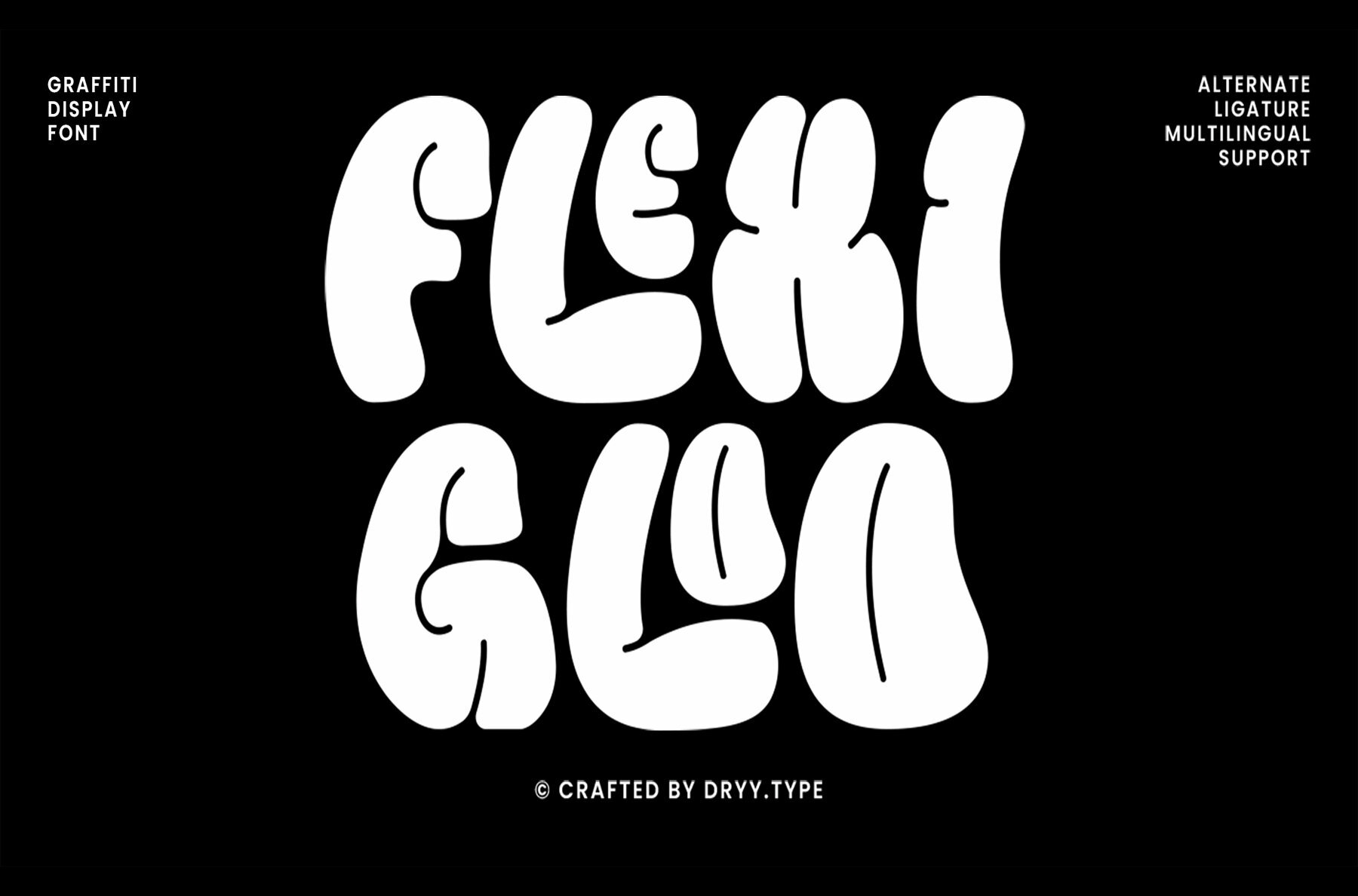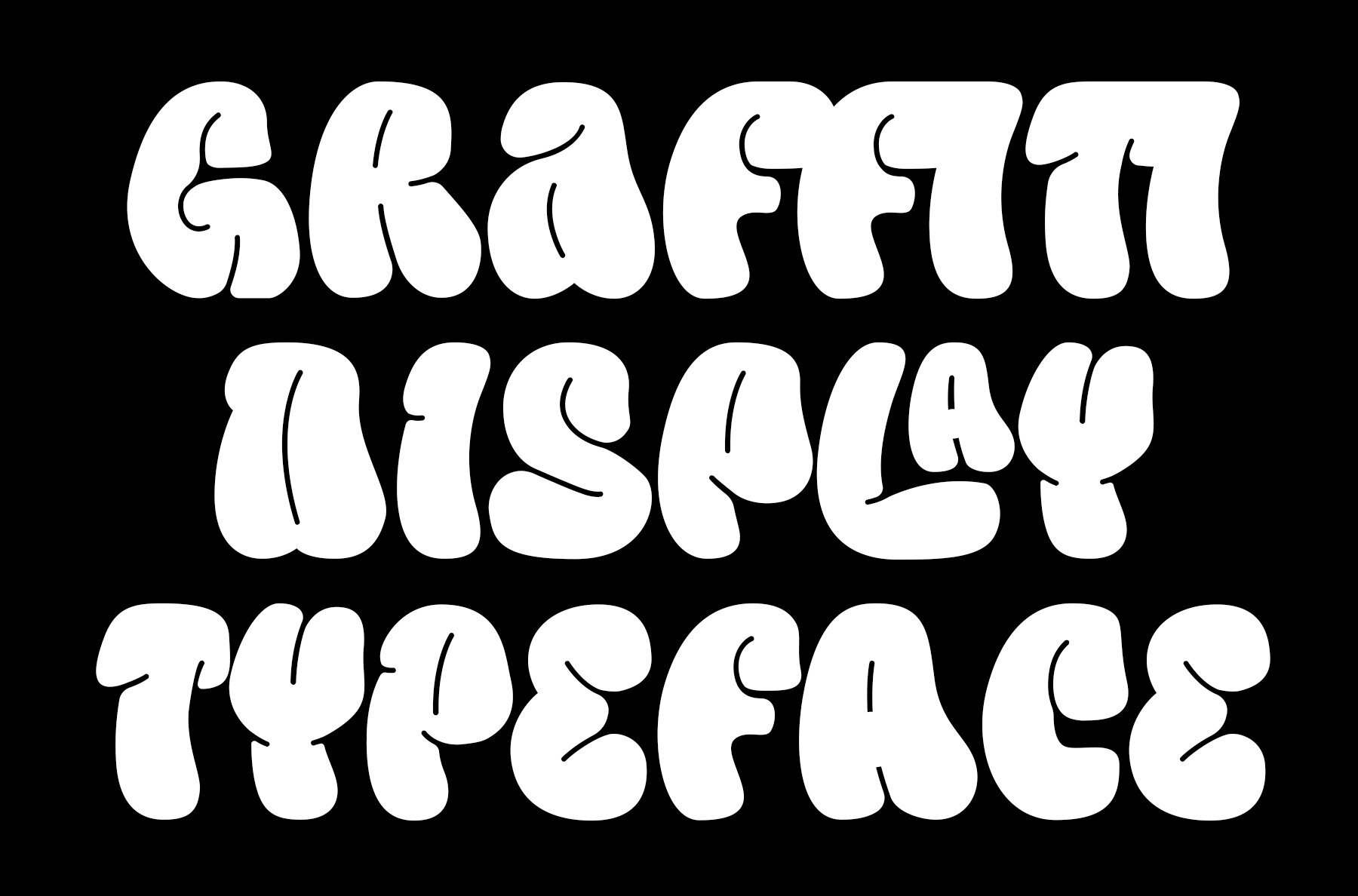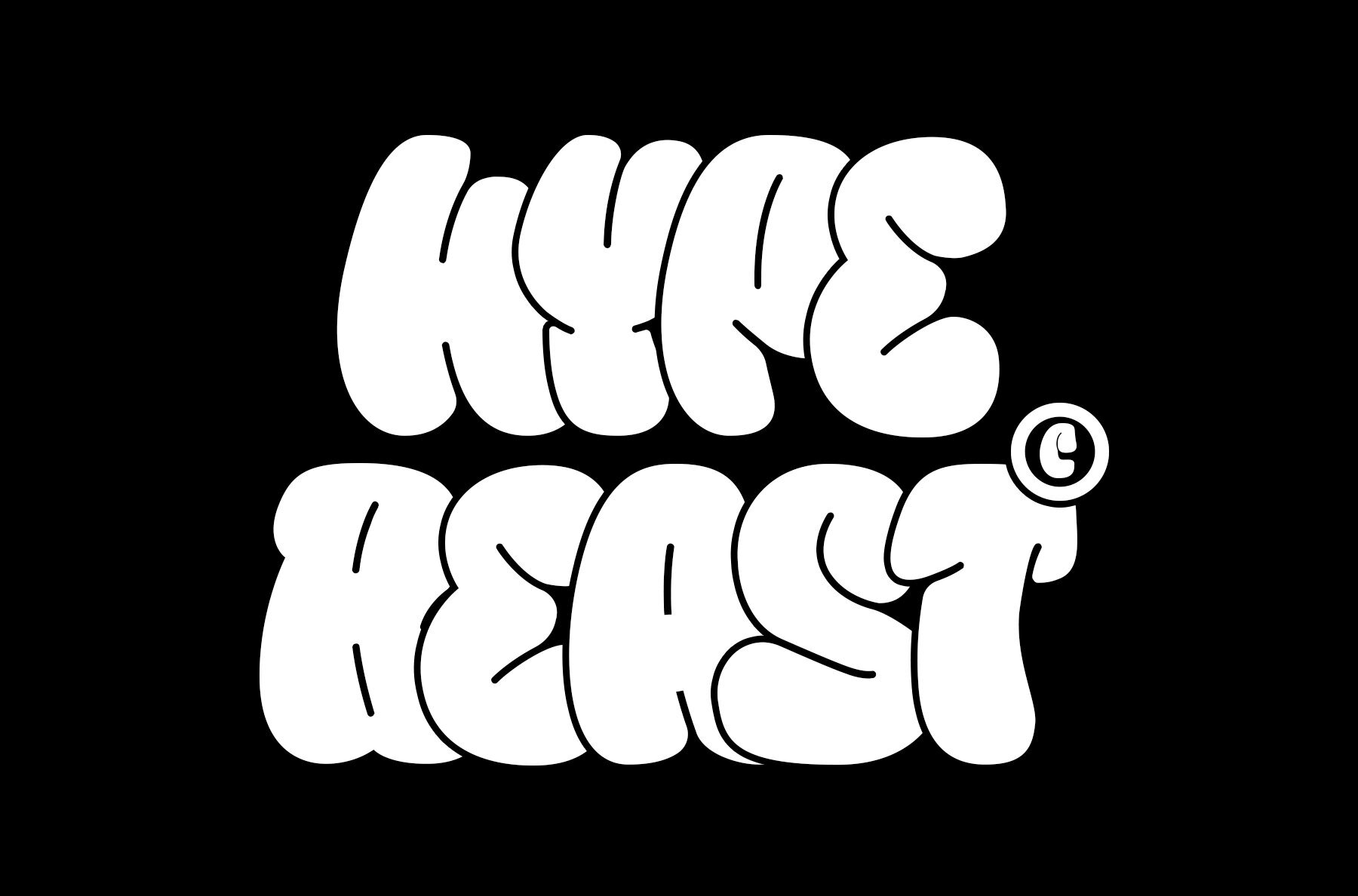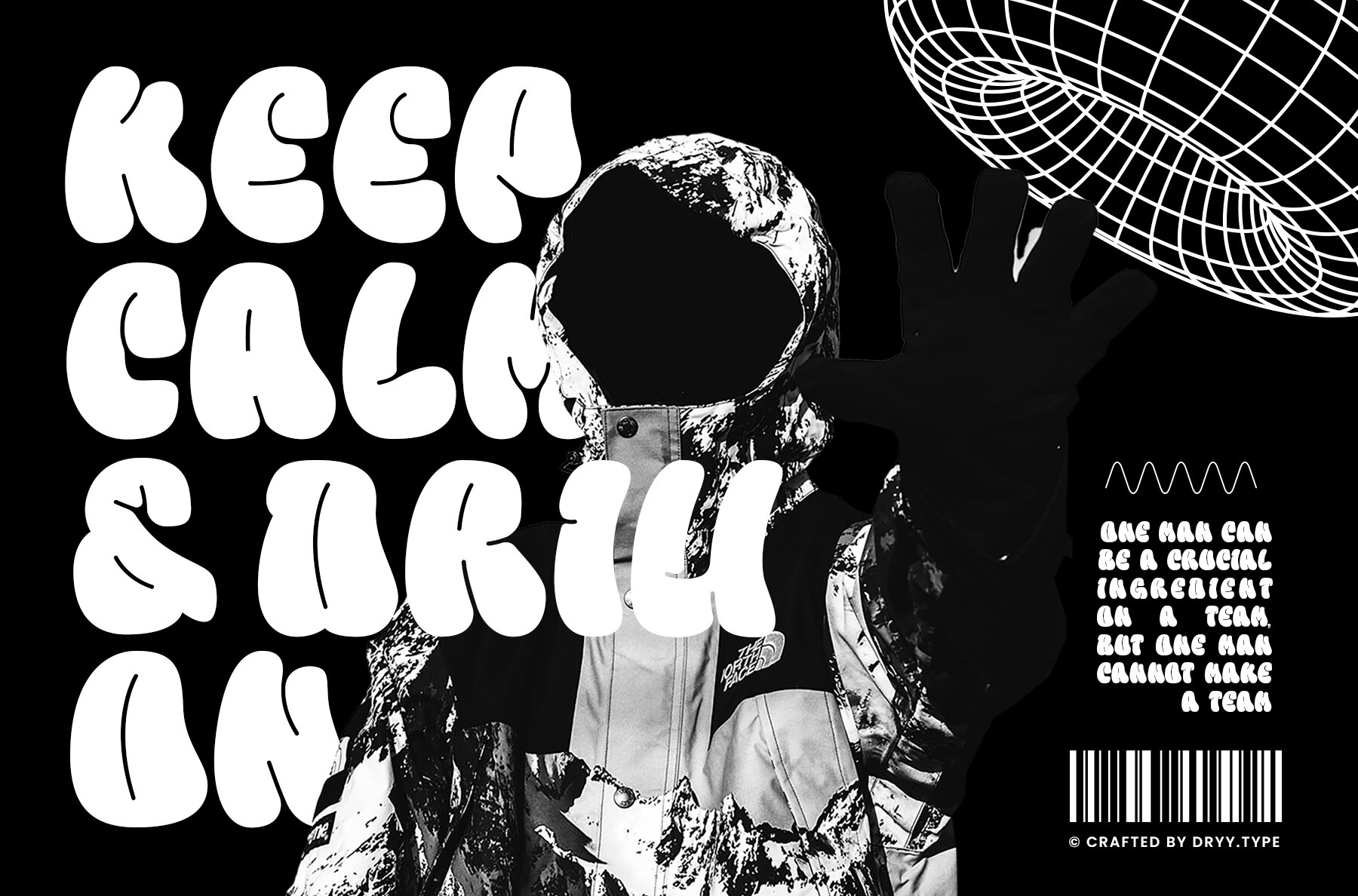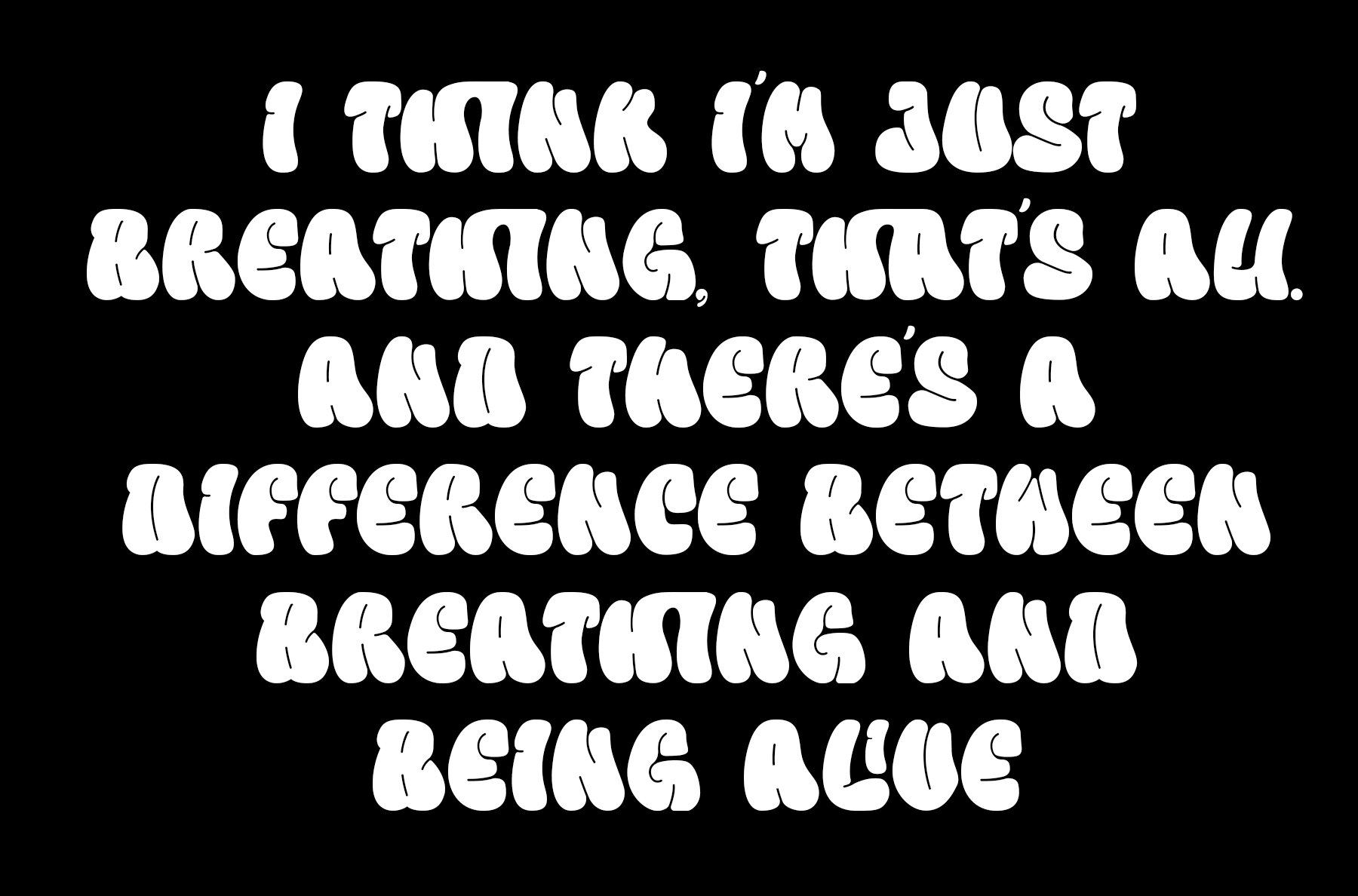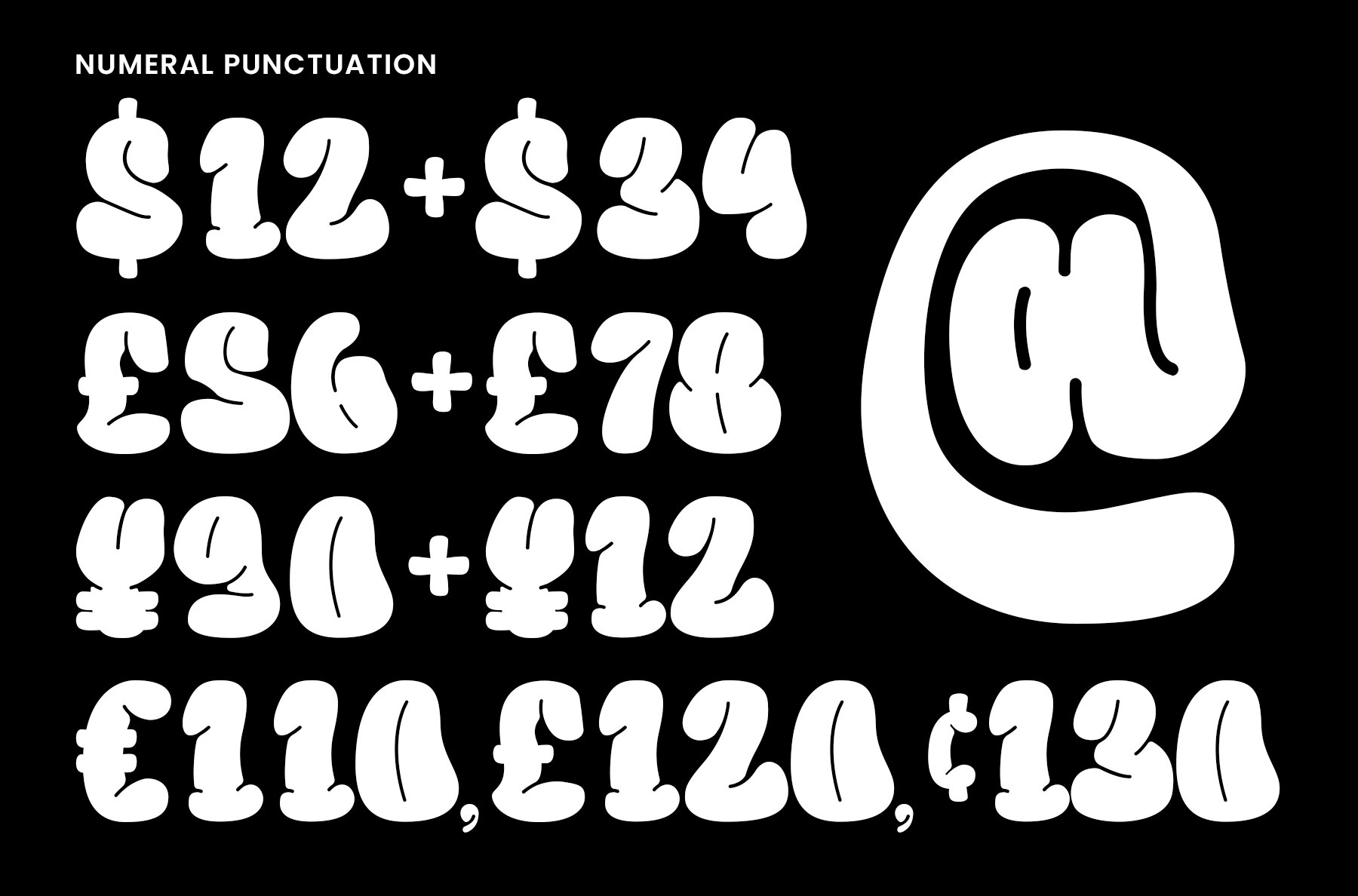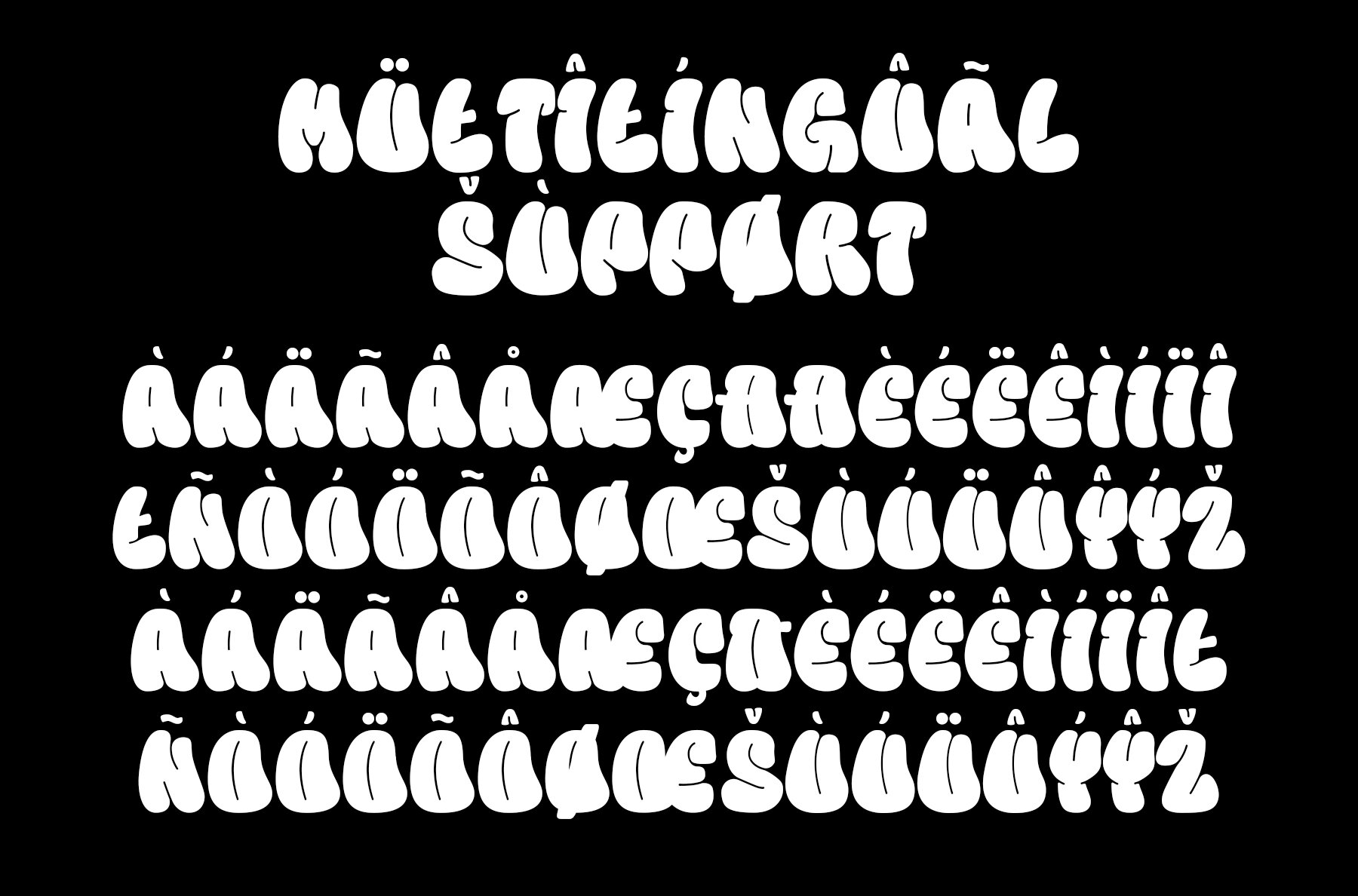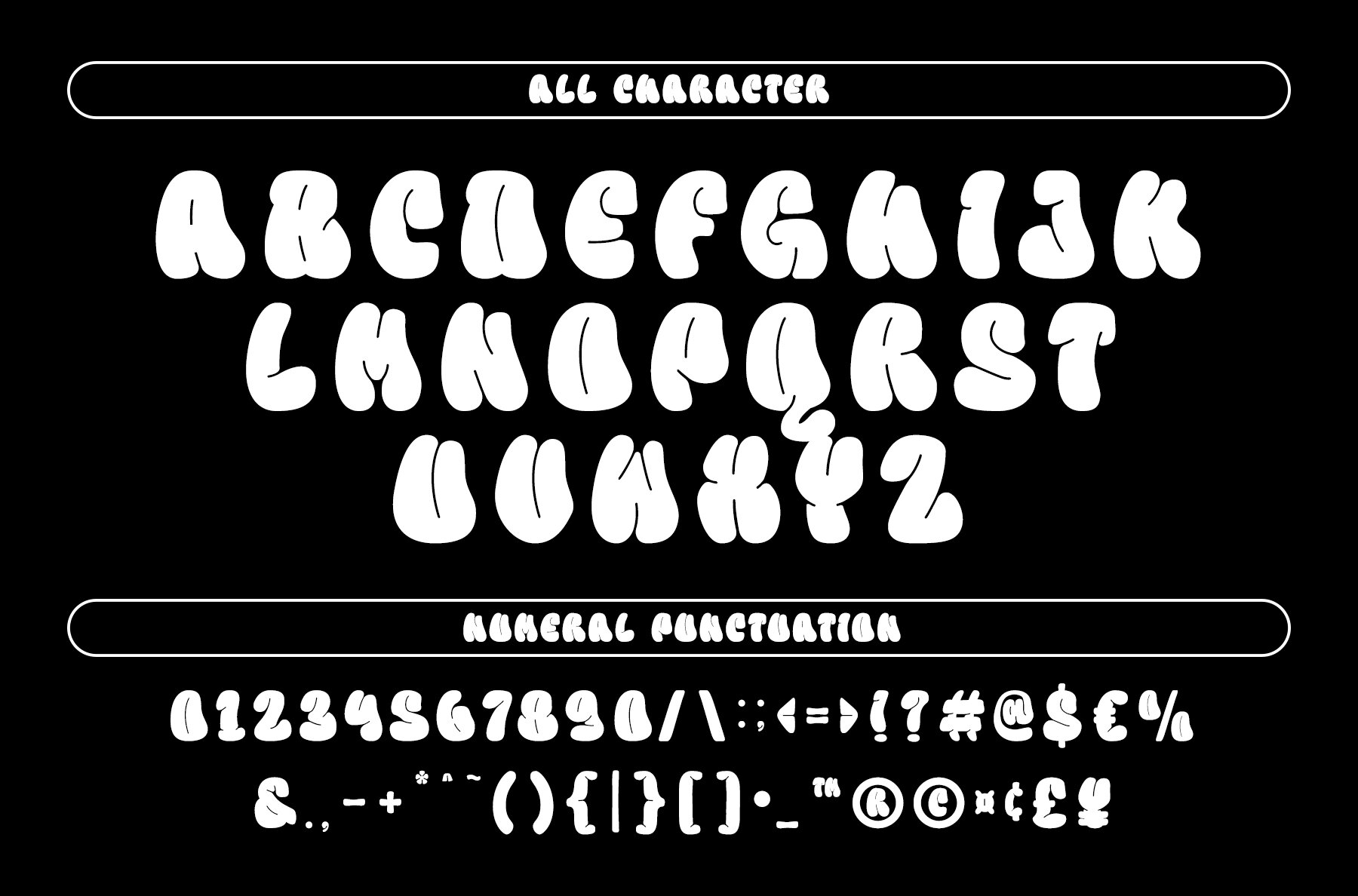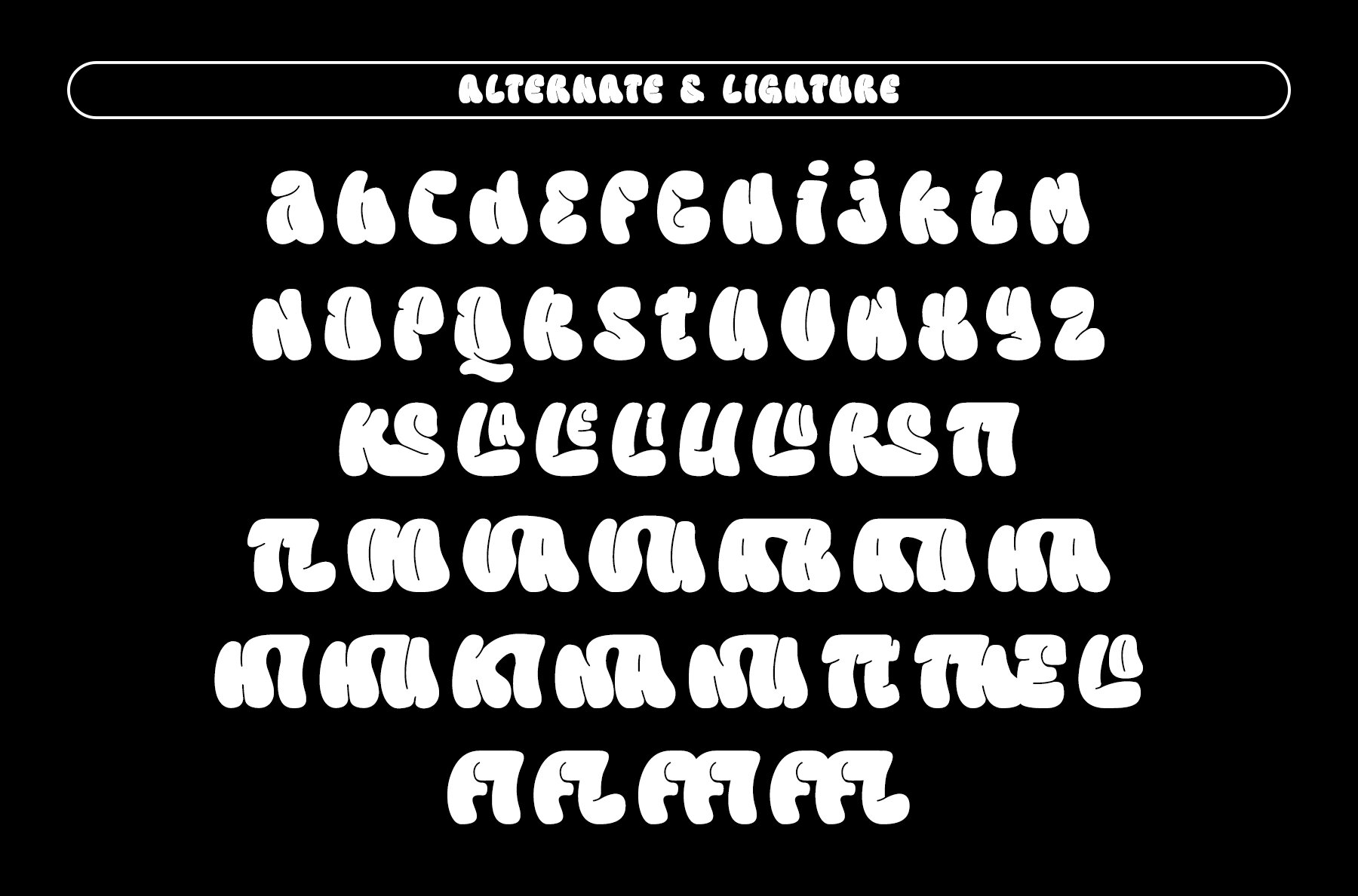
Flexi Gloo Font
Flexi Gloo
Flexi Gloo Font is a dynamic display typeface inspired by bubble characters and graffiti themes, making it perfect for bold and unique design projects. Its hypebeast aesthetic adds a contemporary flair that fits well with various creative ideas. Versatile and eye-catching, this font can enhance any design, from posters and album covers to social media graphics.
Featuring a single case, alternates, ligatures, and multilingual support, Flexi Gloo offers flexibility and customization for diverse applications. Whether you're working on typography-focused projects or need an attention-grabbing typeface, Flexi Gloo is a robust choice that will bring vibrancy and edge to your designs.